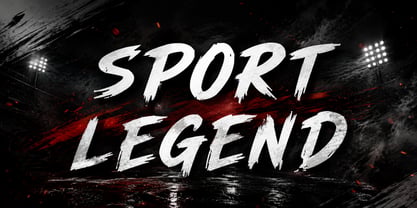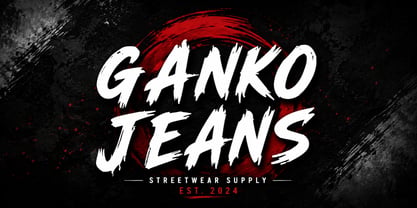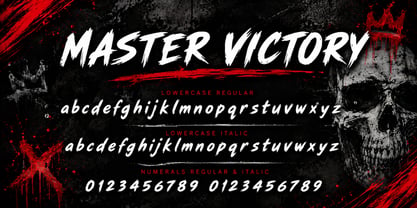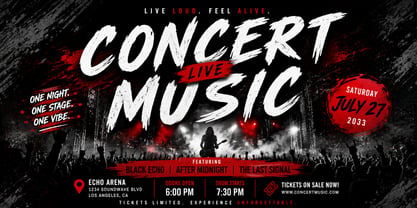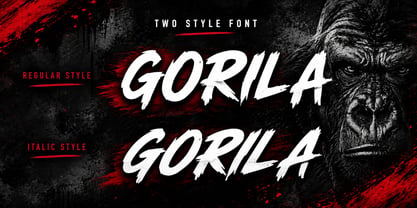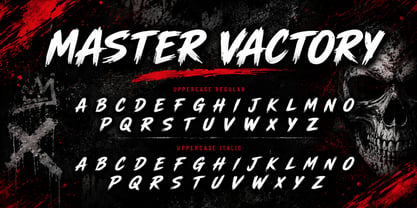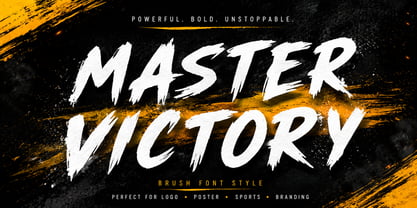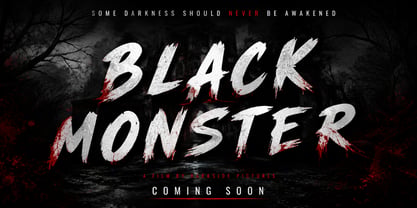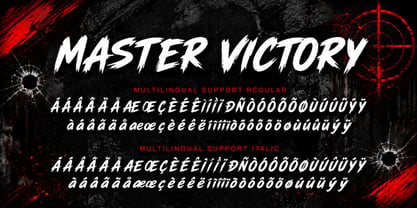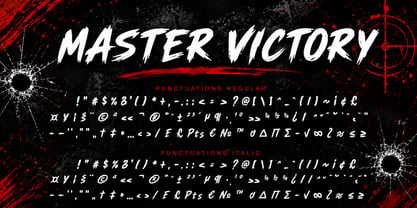
Master Victory
by Yoga Letter
The Master Victory Font Family was designed by Isroni Yoga Prasetya and published by Yoga Letter. Master Victory contains 1 styles and family package options. More about this family
Master Victory is a bold brush font characterized by strong, hand-painted strokes and an energetic, fearless style. This font is perfect for a variety of applications, including logos, sports branding, posters, apparel, packaging, social media, and any project that demands confidence and attention. Its authentic brush texture imparts a raw and dynamic feel, ensuring that every design appears bold, modern, and full of character. Featuring strong capital letters and eye-catching details, Master Victory is an ideal choice for titles, action-themed designs, esports graphics, and high-impact branding projects. Enhance your creative projects with this striking font that embodies strength and vitality.
Master Victory